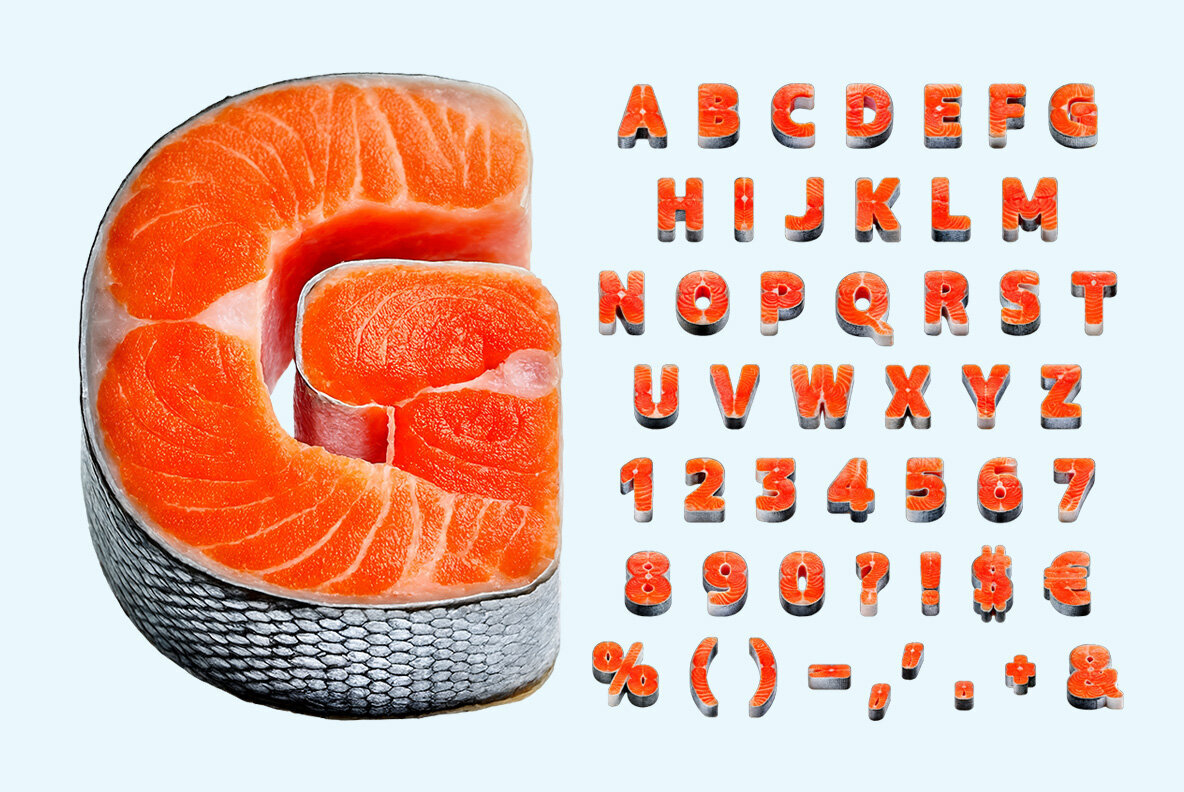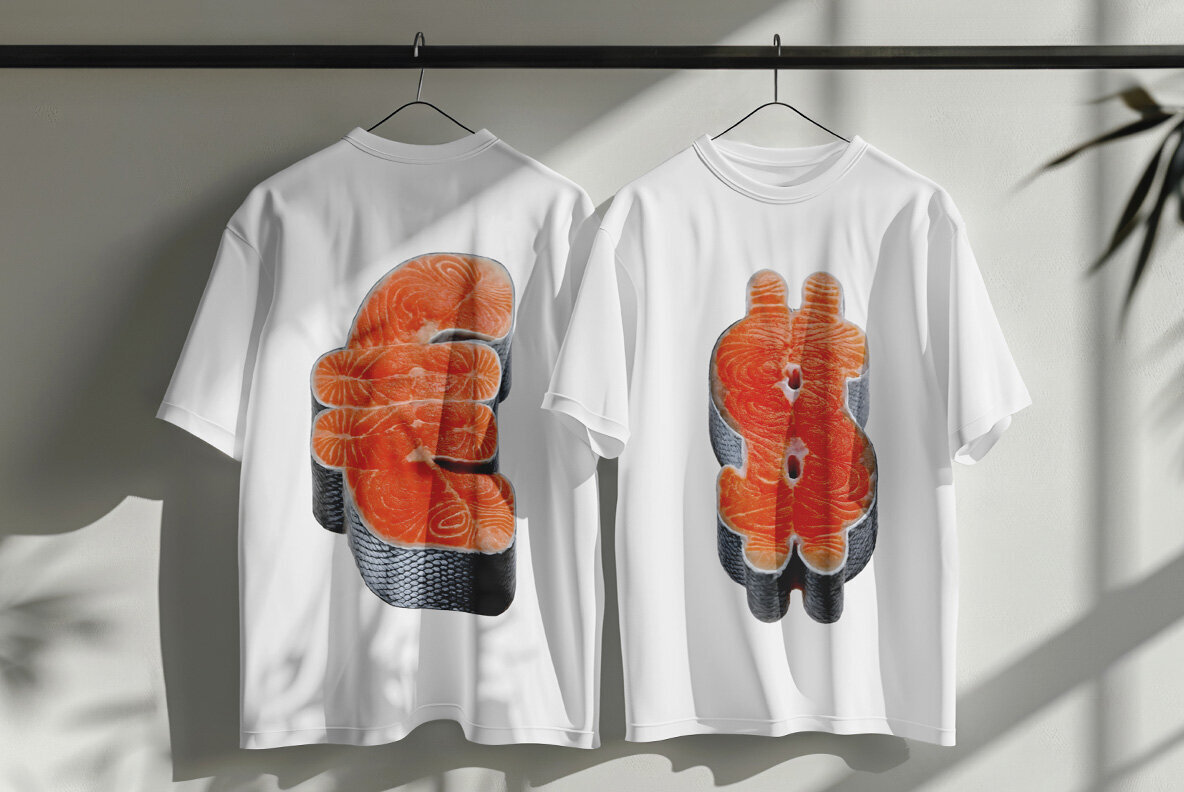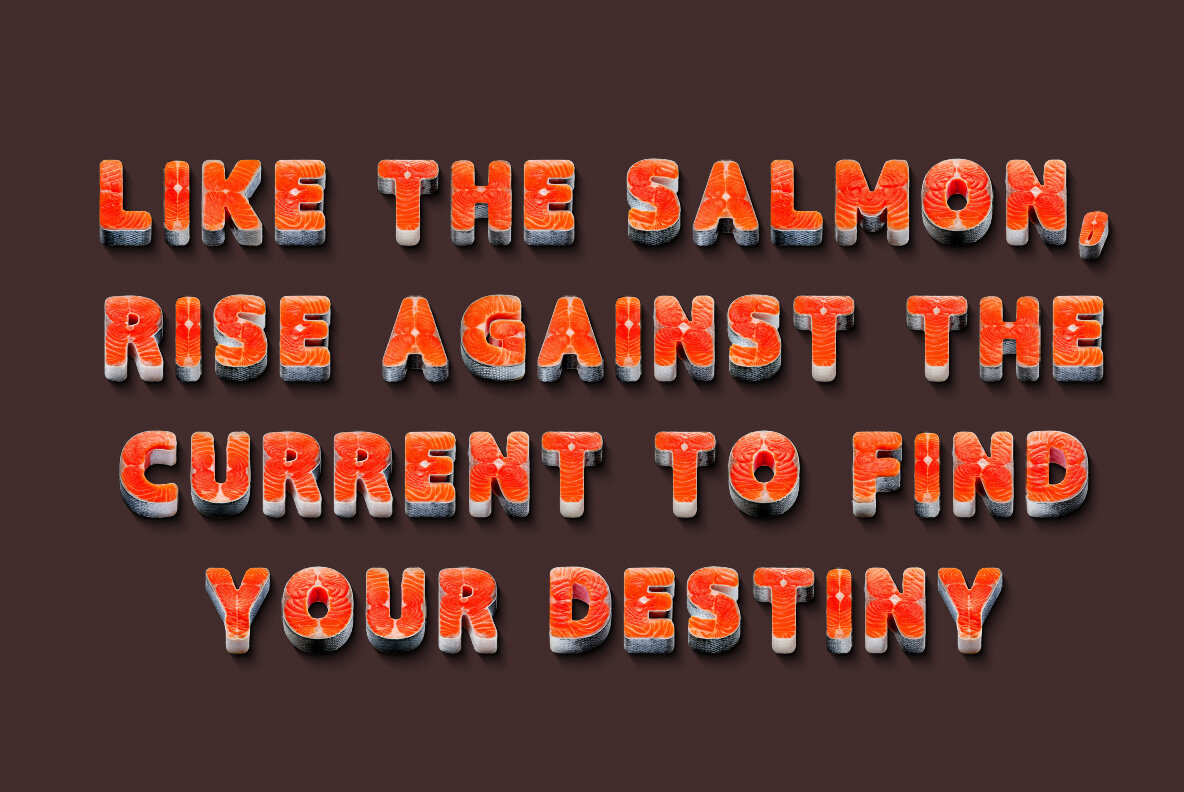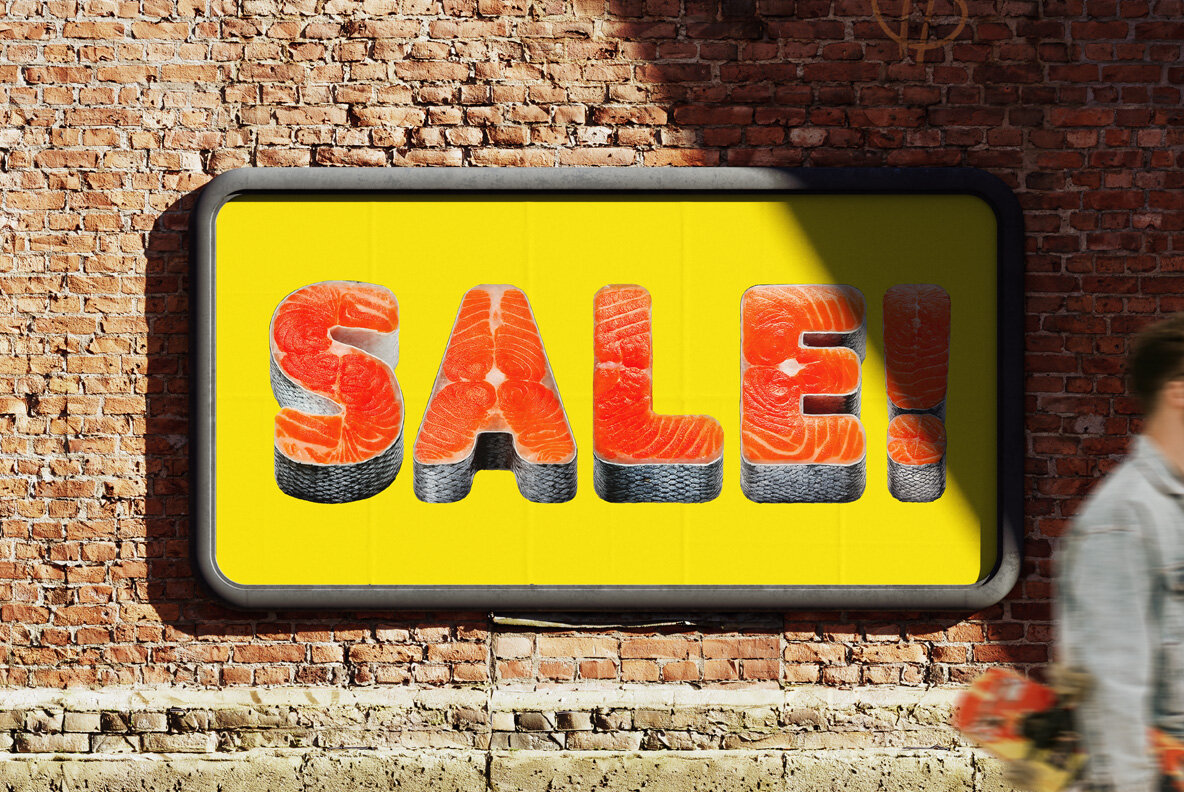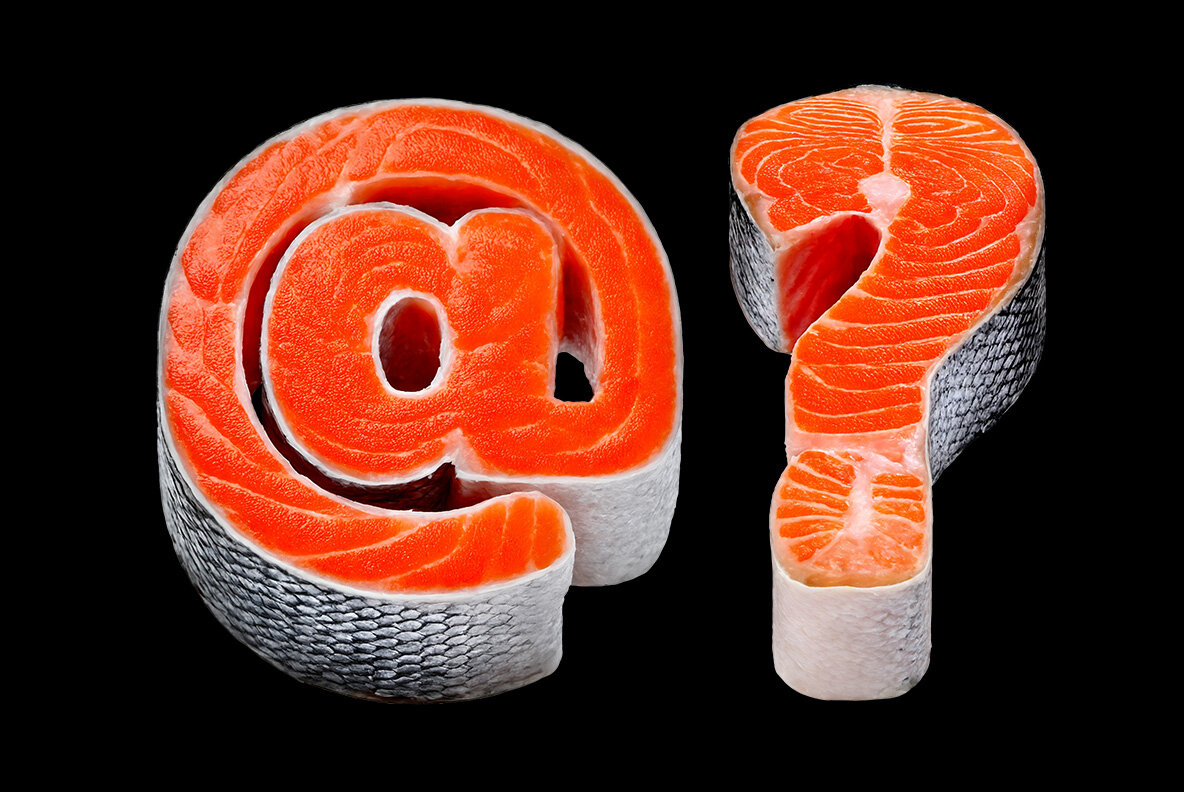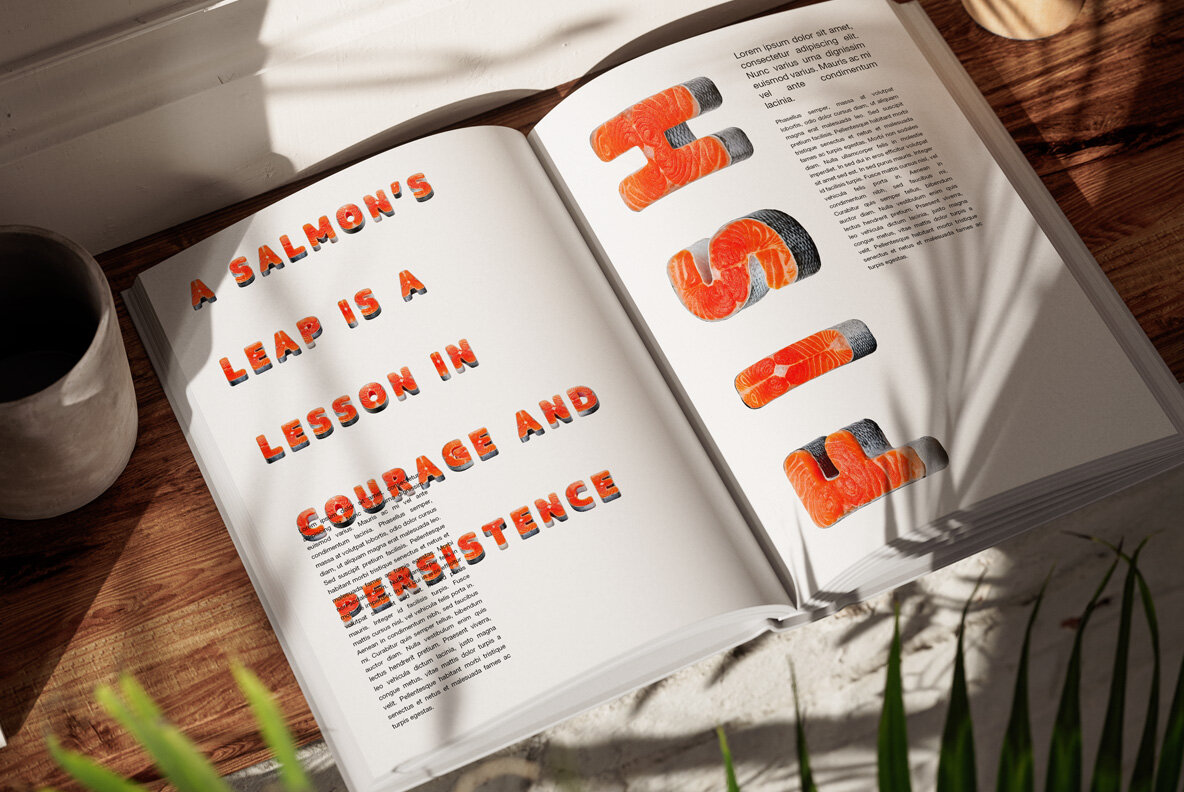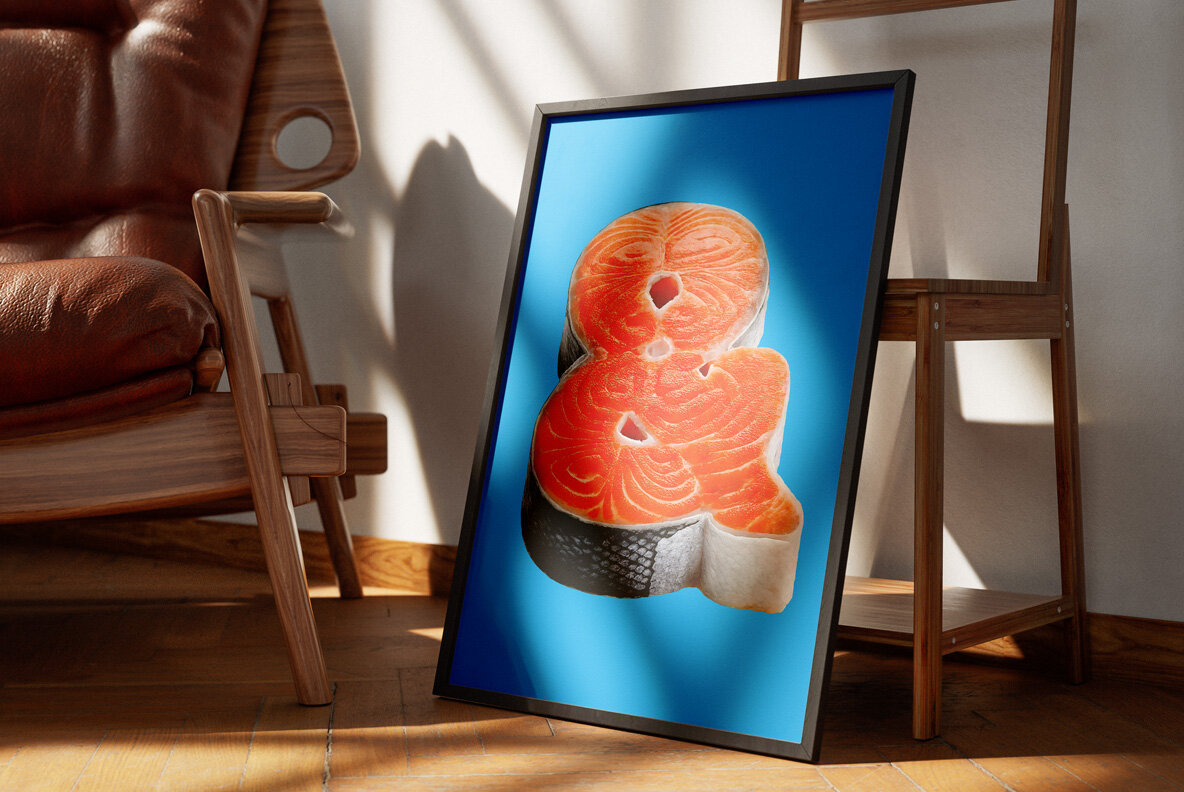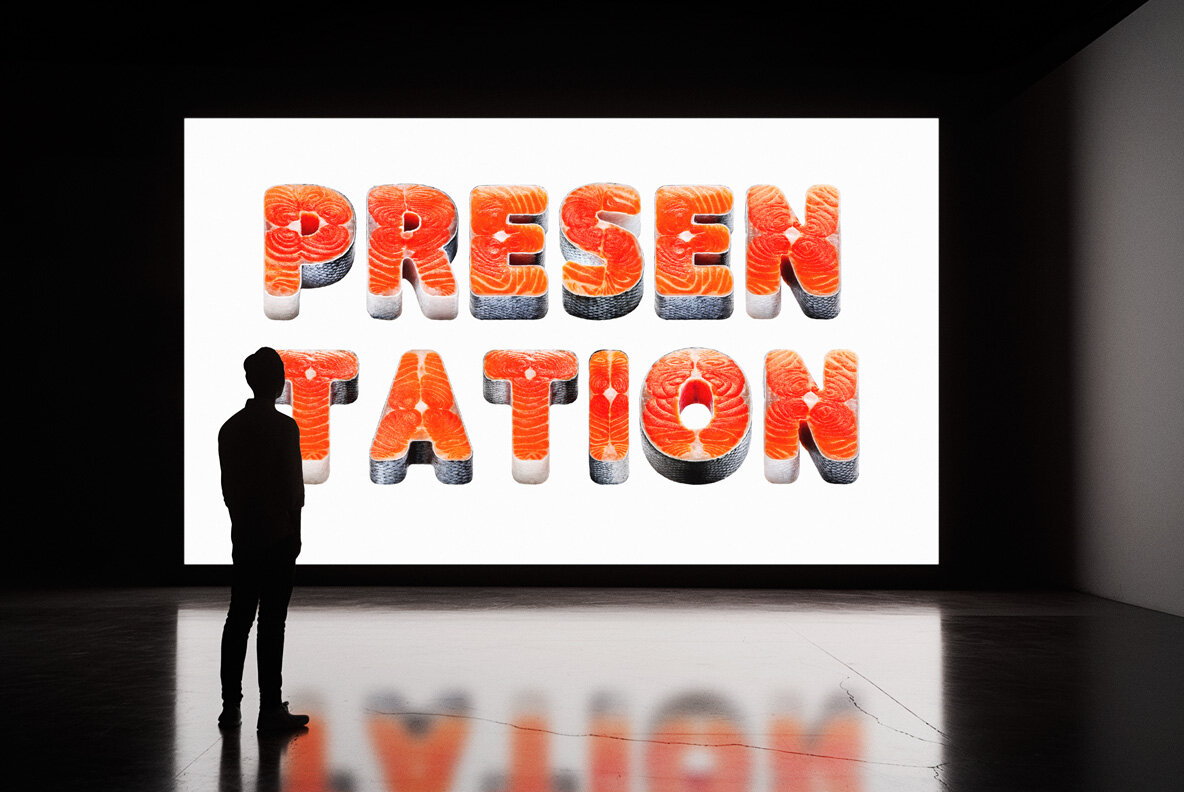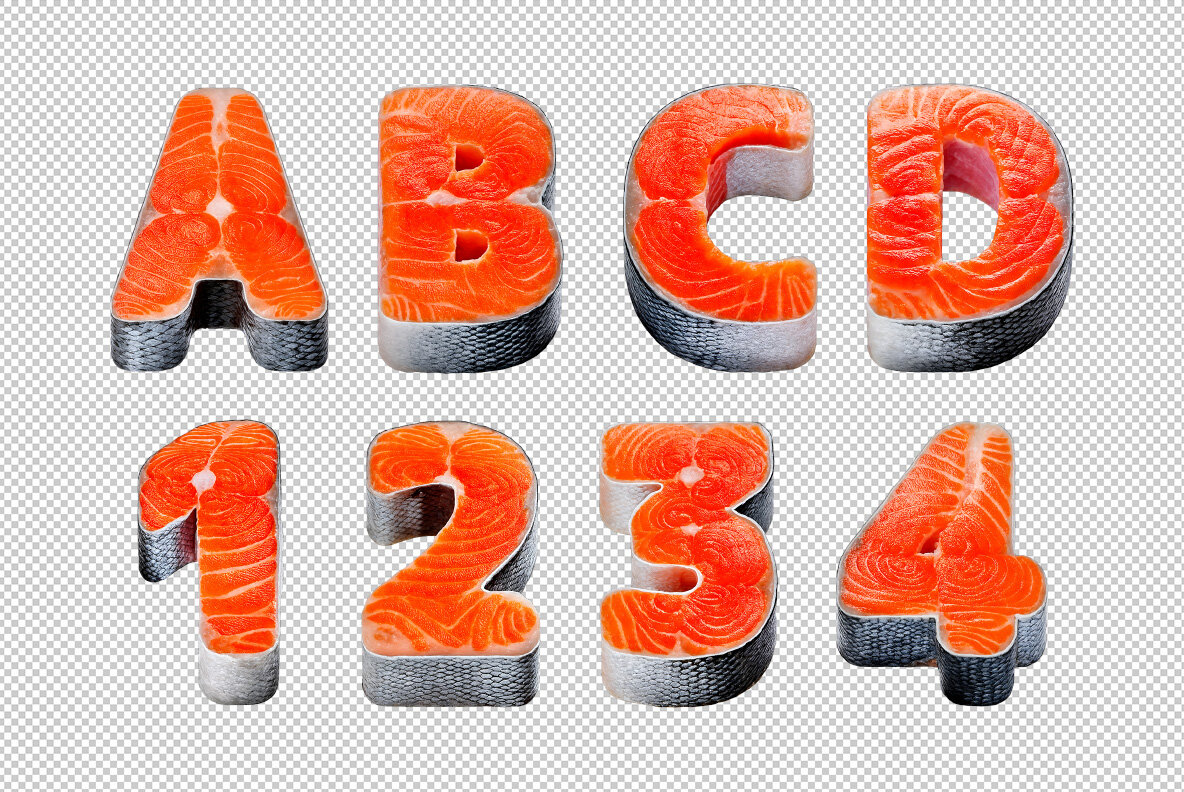
Salmon Font is a vibrant and playful font where each letter is artfully crafted from rows of salmon steaks, merging the worlds of culinary art and typography. Perfect for seafood-themed designs and food lovers, this font injects a unique visual twist into design projects. Its vibrant colors and intricate textures transform the alphabet into a visual feast, making it an excellent choice for menus, food branding, or any playful design project requiring a touch of flavorful creativity.